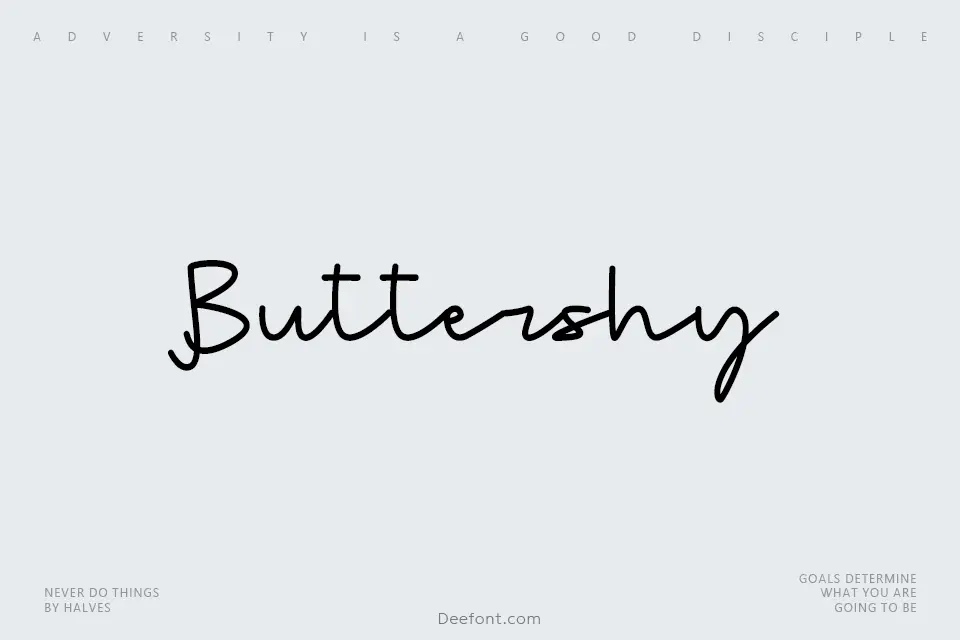
Buttershy Font
Buttershy is a delightful handwritten script typeface featuring soft, flowing curves and friendly letterforms that convey warmth and approachability. With its characteristic playful personality and casual stroke dynamics, this font excels at adding personality to invitations, greeting cards, posters, and display titles. The rounded, organic letterforms and naturally imperfect strokes create an authentic handwritten aesthetic ideal for creative projects, wedding stationery, social media content, and branding that seeks a human touch. Perfect for designers seeking to inject charm and personality into contemporary and youthful design applications.
Designed by:Rhamdani Mardiansyah